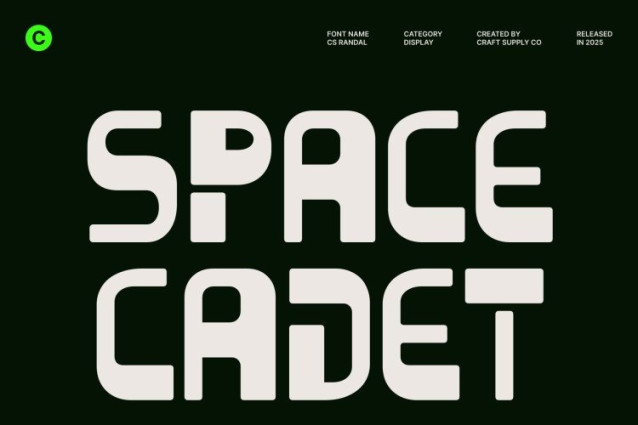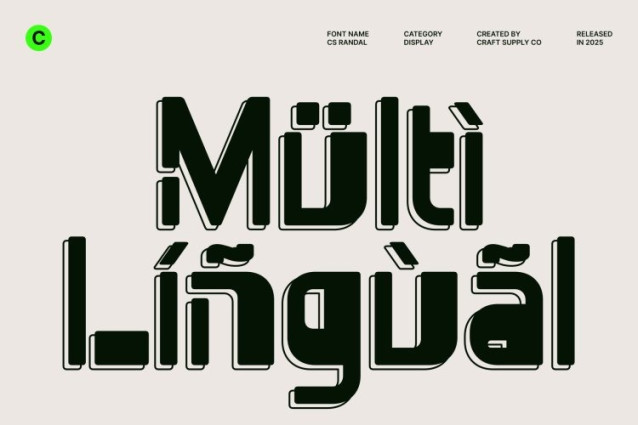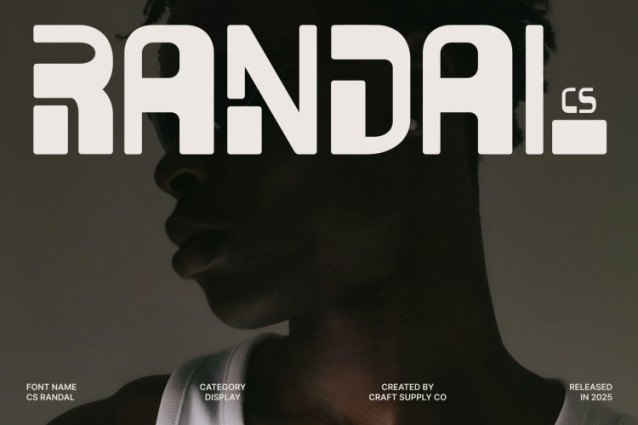
CS Randal Font
CS Randal Font This is a stylish and experimental sans serif font built on the foundations of brutalist design. Its sharp edges, assertive forms, and unapologetically rigid construction create a strong visual presence that feels raw, and industrial. Each letterform is designed to reject softness and decoration, instead embracing a bold, architectural approach that commands attention.
Sharp Geometry for Industrial Expression
This font delivers an unmistakably industrial character. The sharp geometry gives the font a mechanical precision, evoking urban structures, concrete surfaces, and modernist design principles. This angular construction enhances clarity while reinforcing its brutalist identity, making the font ideal for layouts that demand intensity, structure, and visual authority.
Futuristic Look with Contemporary Energy
While rooted in brutalist aesthetics, this font pushes into futuristic territory through its clean proportions and experimental balance. The minimal contrast and disciplined rhythm create a modern flow that feels innovative and progressive. This fusion of industrial harshness and futuristic refinement makes the font feel relevant for cutting-edge visual communication.
Designed for Editorial, Posters, and Graphic Design
This font thrives in editorial design, posters, and bold graphic design projects. Its strong personality and high-impact presence make it perfect for headlines, layouts, branding statements, and conceptual visuals. Whether used in print or digital media, this font delivers a powerful, modern voice that elevates design with brutal clarity and futuristic edge.